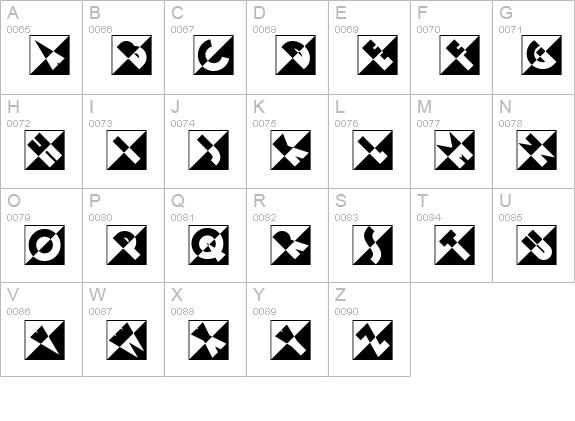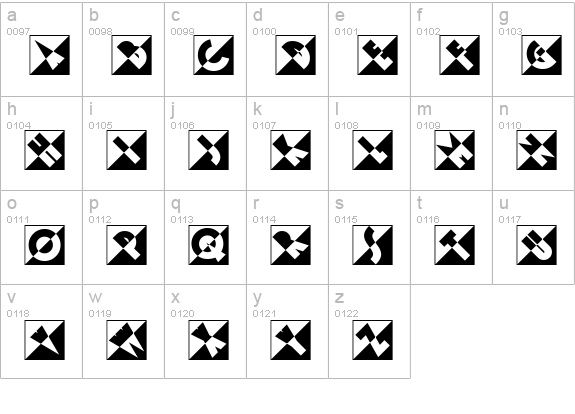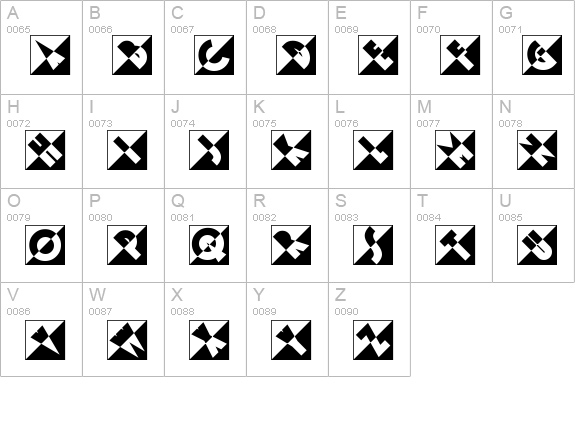
EmporiumNF Font Details
EmporiumNF is a stunning and elegant font that exudes sophistication and charm. With its classic yet modern design, this font is perfect for a wide range of design projects, from branding to invitations to packaging. The clean lines and intricate details of EmporiumNF make it a versatile choice for both print and digital applications. The best part? EmporiumNF is completely free to download at FontsMarket.com! This means you can add this beautiful font to your collection without any cost, making it a fantastic choice for designers on a budget or anyone looking to enhance their projects with a touch of elegance. Don't miss out on the opportunity to elevate your designs with EmporiumNF. Download this exquisite font today and see the difference it can make in your work!